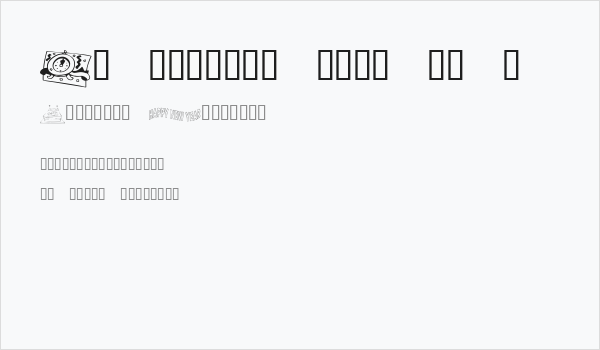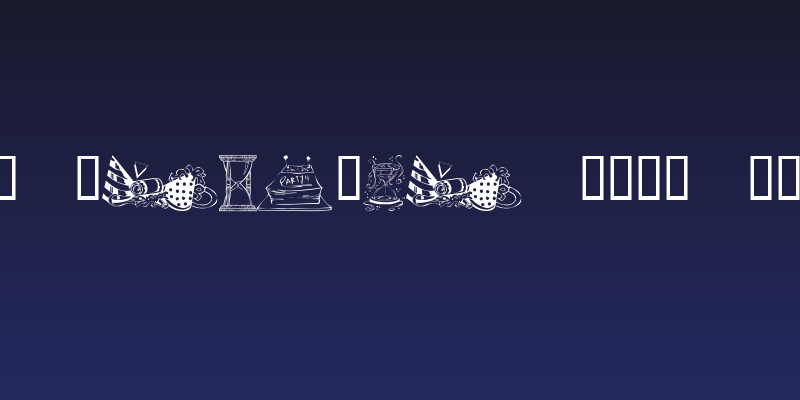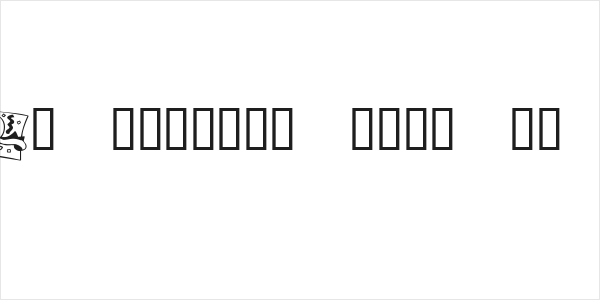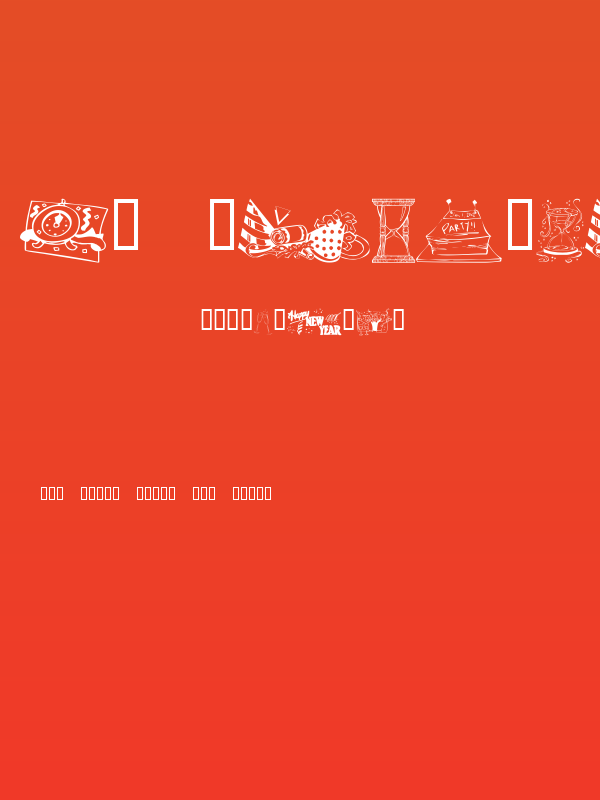
KR Welcome 2002 Pt 2 Font
KR Welcome 2002 Pt 2 Description
This font is a decorative and playful typeface featuring a series of New Year-themed illustrations. Each character is uniquely designed with festive elements such as party hats, balloons, and celebratory motifs, making it ideal for holiday-themed projects. The style is whimsical and artistic, capturing the essence of celebration and joy. The characters are detailed and intricate, providing a visually engaging experience. This font is perfect for creating eye-catching designs that require a touch of festivity and creativity.
| Proposed Projects | Ideal for New Year greeting cards, party invitations, festive banners, and holiday-themed posters. |